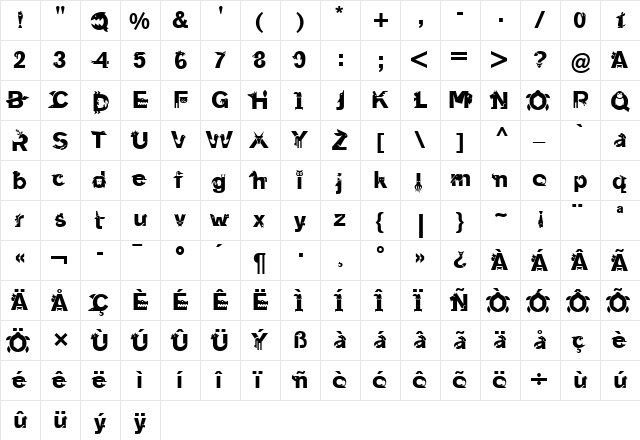
LTAnimalia Medium
Design Context for LTAnimalia Typeface
LTAnimalia is a composed and adaptable typeface that performs quietly and consistently across a wide range of design contexts.